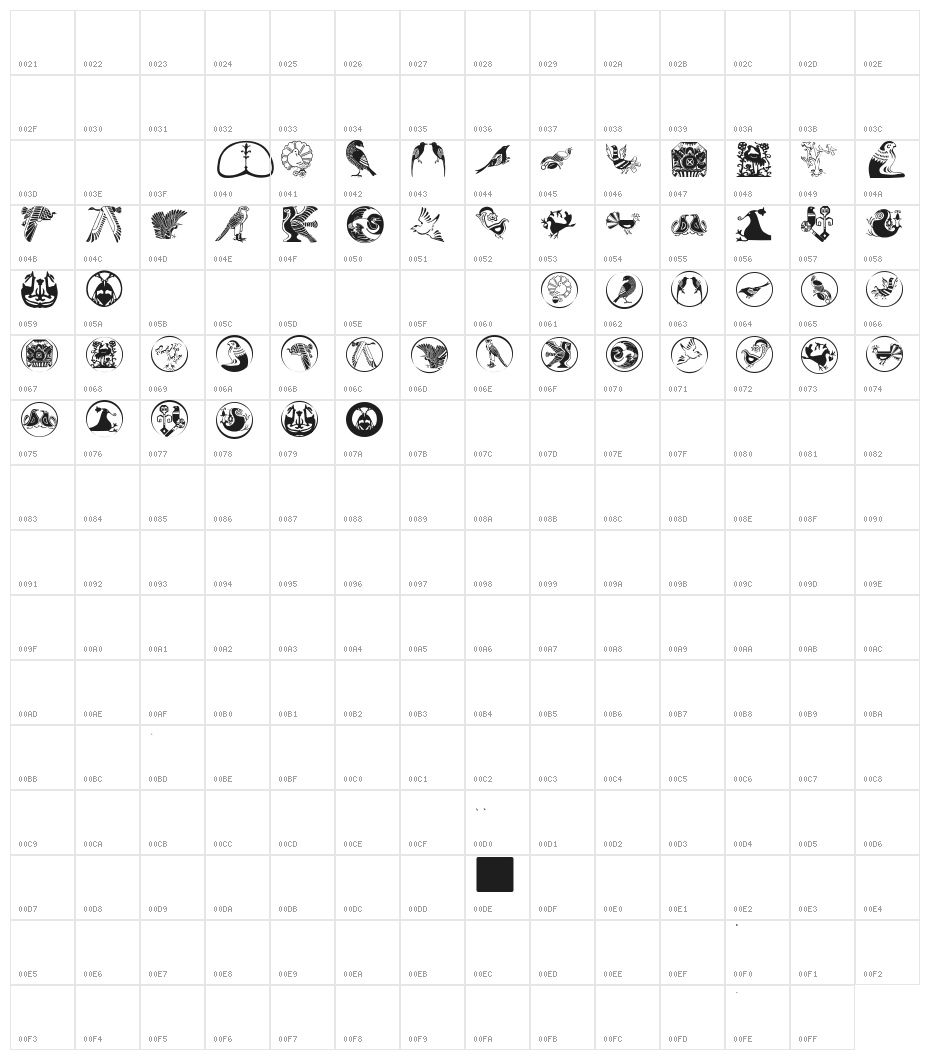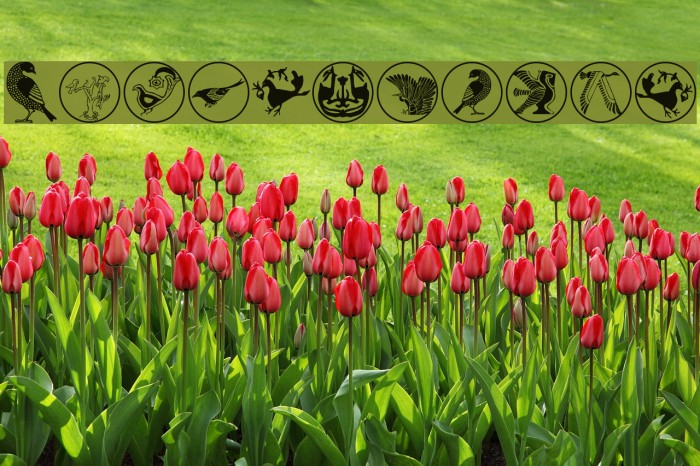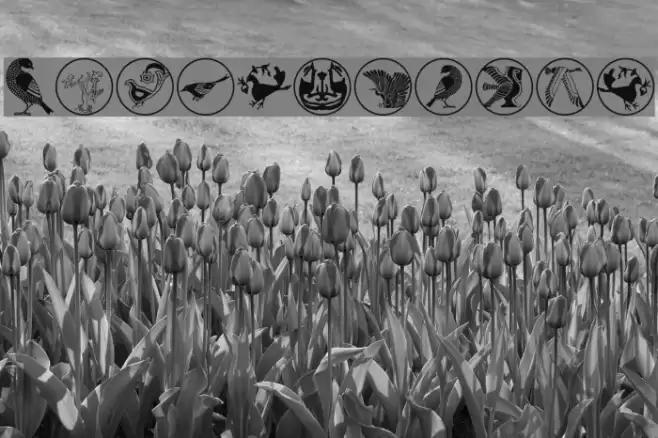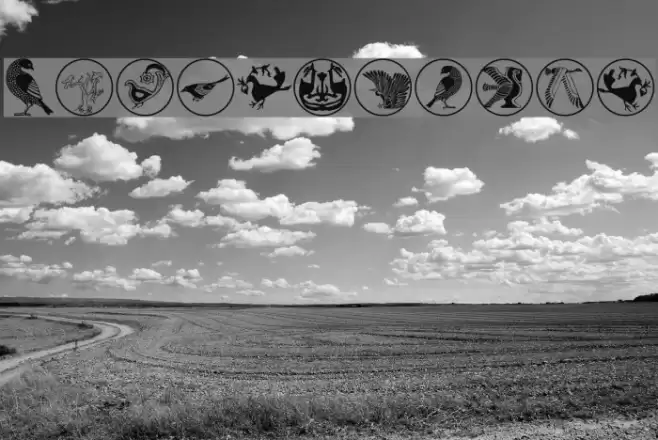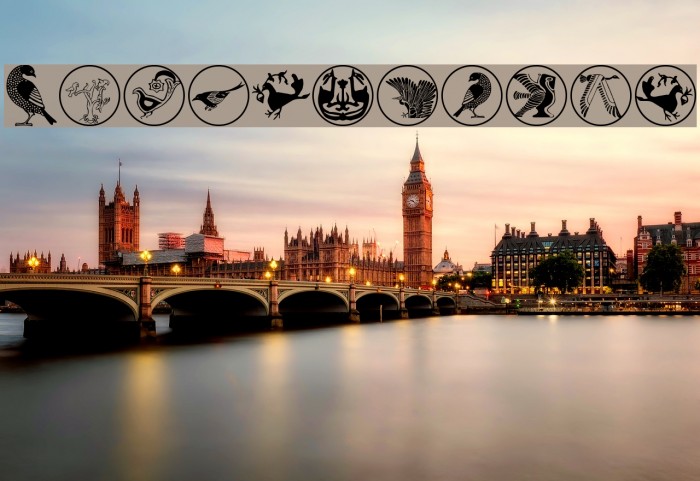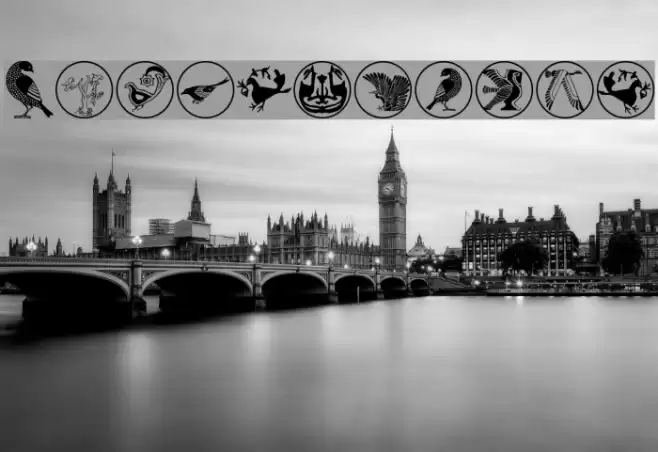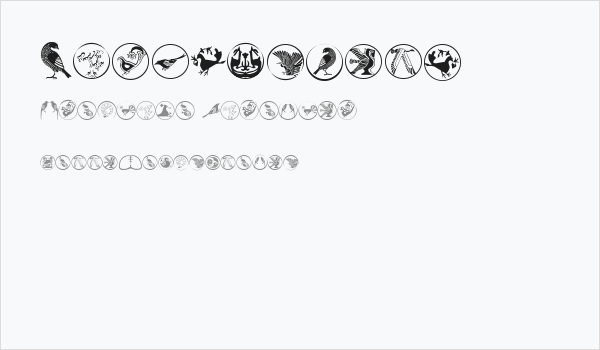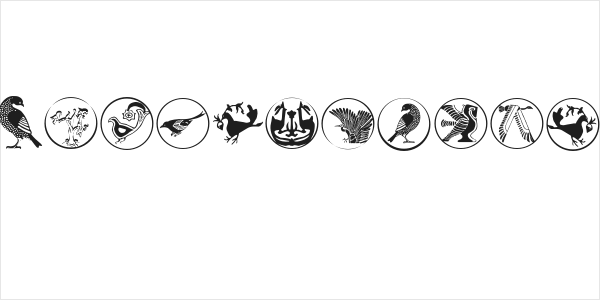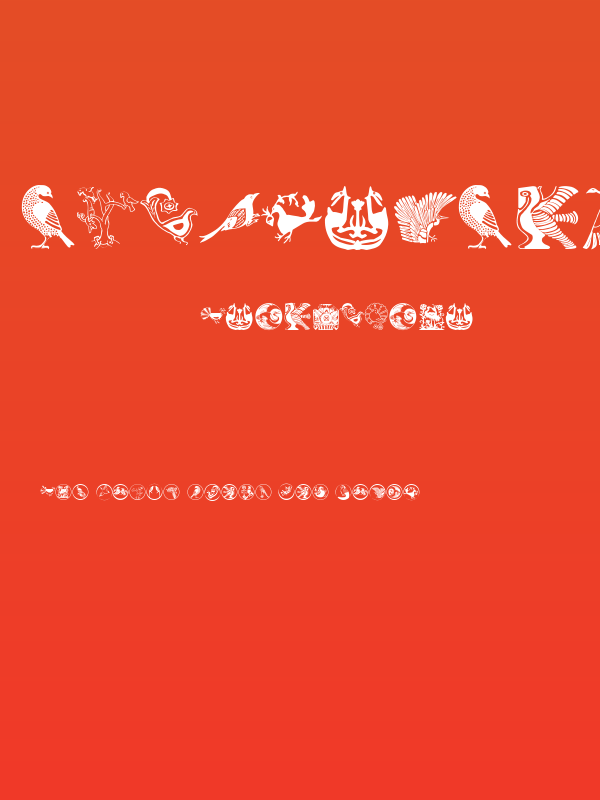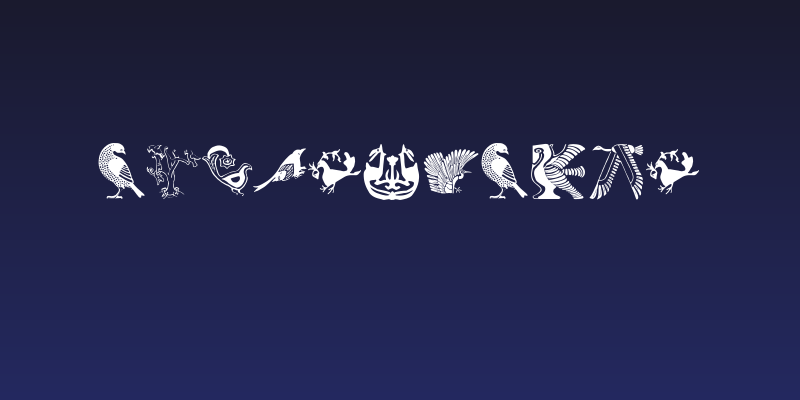
BirdSymbols Font
BirdSymbols Description
This collection features a series of decorative symbols that incorporate bird motifs into each character. Each symbol is intricately designed, showcasing a variety of bird species and artistic styles. The symbols are enclosed in circular frames, adding a cohesive and polished look. The designs range from simple and elegant to complex and ornate, making them versatile for various creative projects. The use of black and white contrast enhances the details and makes each symbol stand out distinctly. These symbols are perfect for adding a touch of nature and elegance to any design.
| Use Case | Logos, Decorative prints |
| Proposed Projects | Ideal for logo design, branding, decorative prints, and nature-themed projects. |